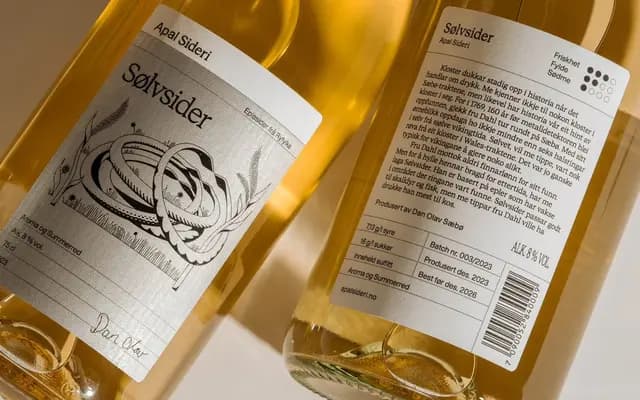
Bureau Sans
A sans-serif designed on the same skeleton as Bureau Serif, available in three spacing variants from proportional to fully monospaced, across six weights with matching italics and a variable file.
Bureau Sans and Bureau Serif share a common skeleton, each borrowing constraints from the other so that the distinction between them becomes a deliberate choice rather than a default. The sans comes in Standard, SemiMono and Mono variants, six weights from Light to Bold, matching italics and a variable file, making it equally viable for continuous text, UI work and code environments. The two families are sold together and were built to be used in combination.
Bureau Sans is a proportional sans-serif with shared skeletal DNA with Bureau Serif, suggesting humanist construction; the three spacing styles (Standard, SemiMono, Mono) and the serif companion indicate a text-oriented, considered design rather than a pure geometric or grotesque approach.